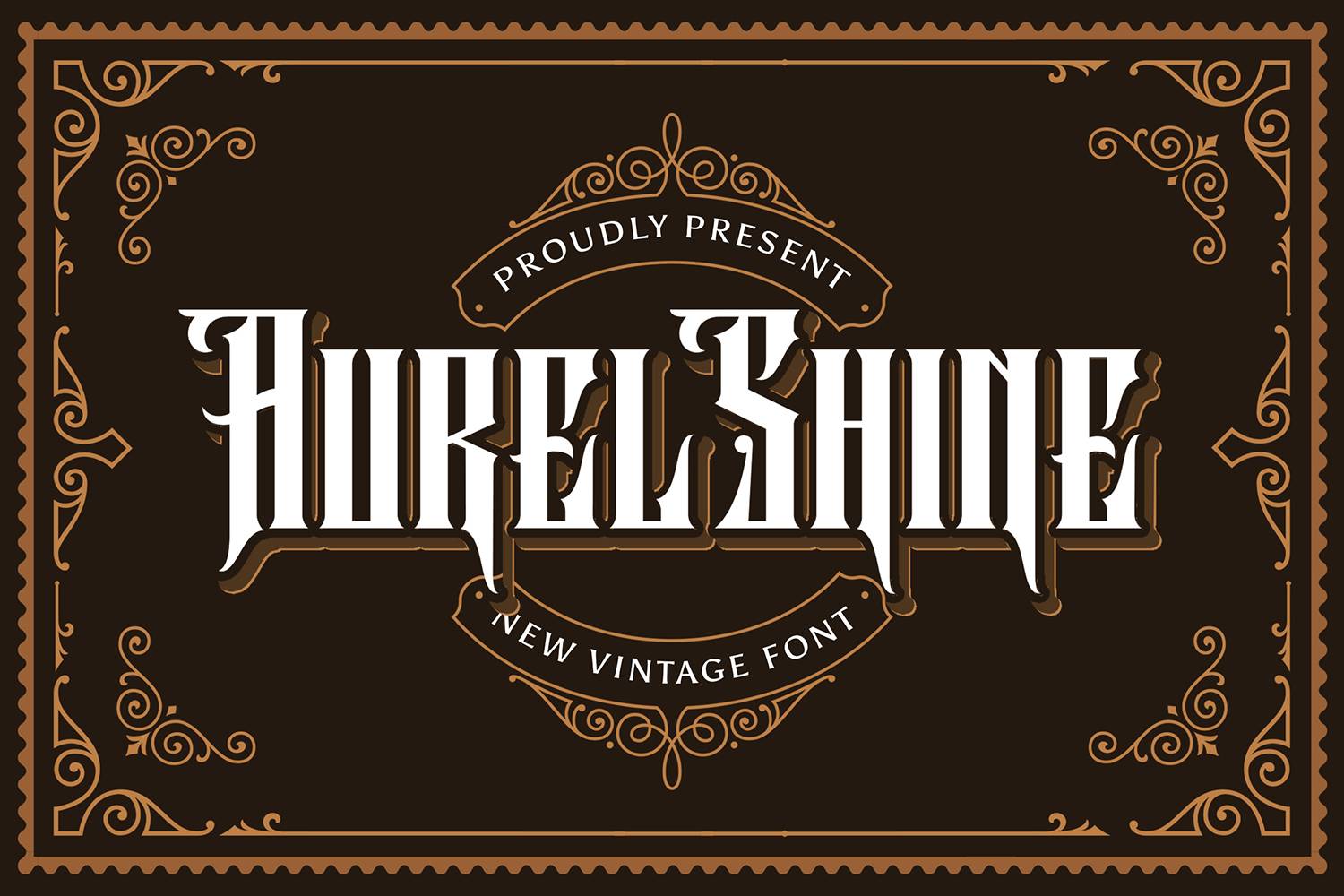
Aurel Shine is a bold, condensed serif font with a strong gothic influence, featuring high contrast between thick and thin strokes and sharply pointed serifs that give it a dramatic, vintage flair. Its narrow letterforms and intricate details evoke a sense of elegance and mystery, making it ideal for striking headlines, logos, or branding that seeks to convey a sense of tradition with a modern edge. This distinctive typeface works especially well in fashion, luxury, or editorial contexts where a bold, memorable impact is needed.
Aurel Shine Font
About Aurel Shine Font
| Font family | Aurel Shine Font |
| Designer | Stringlabs |